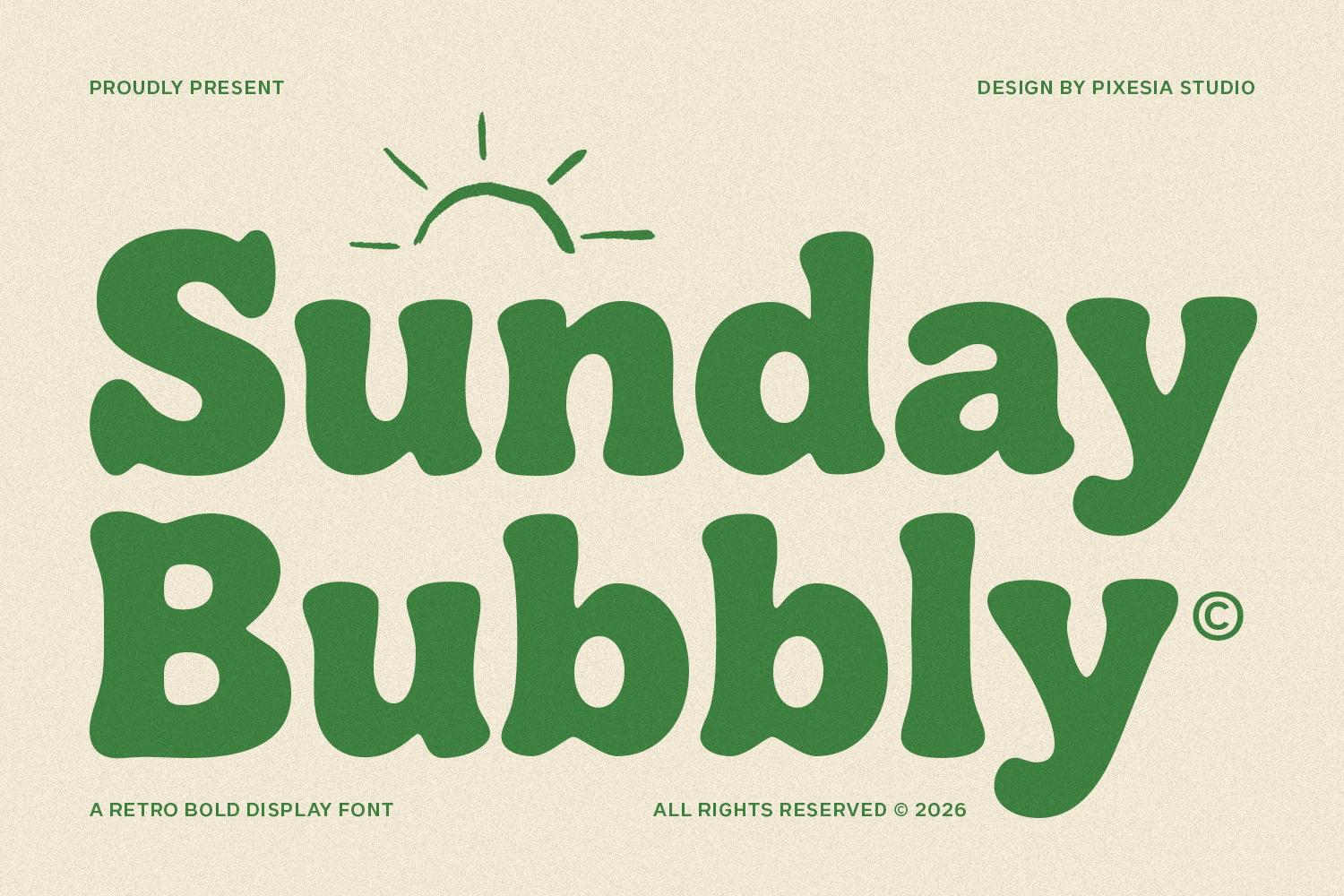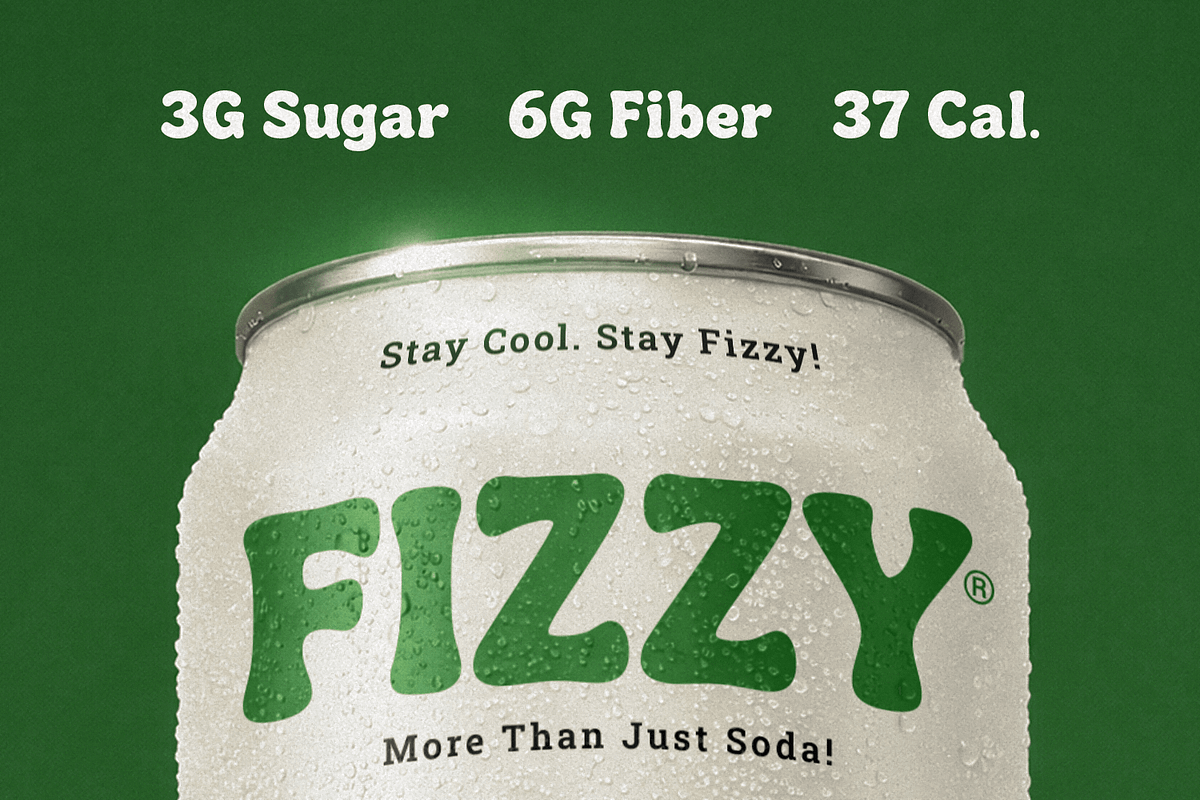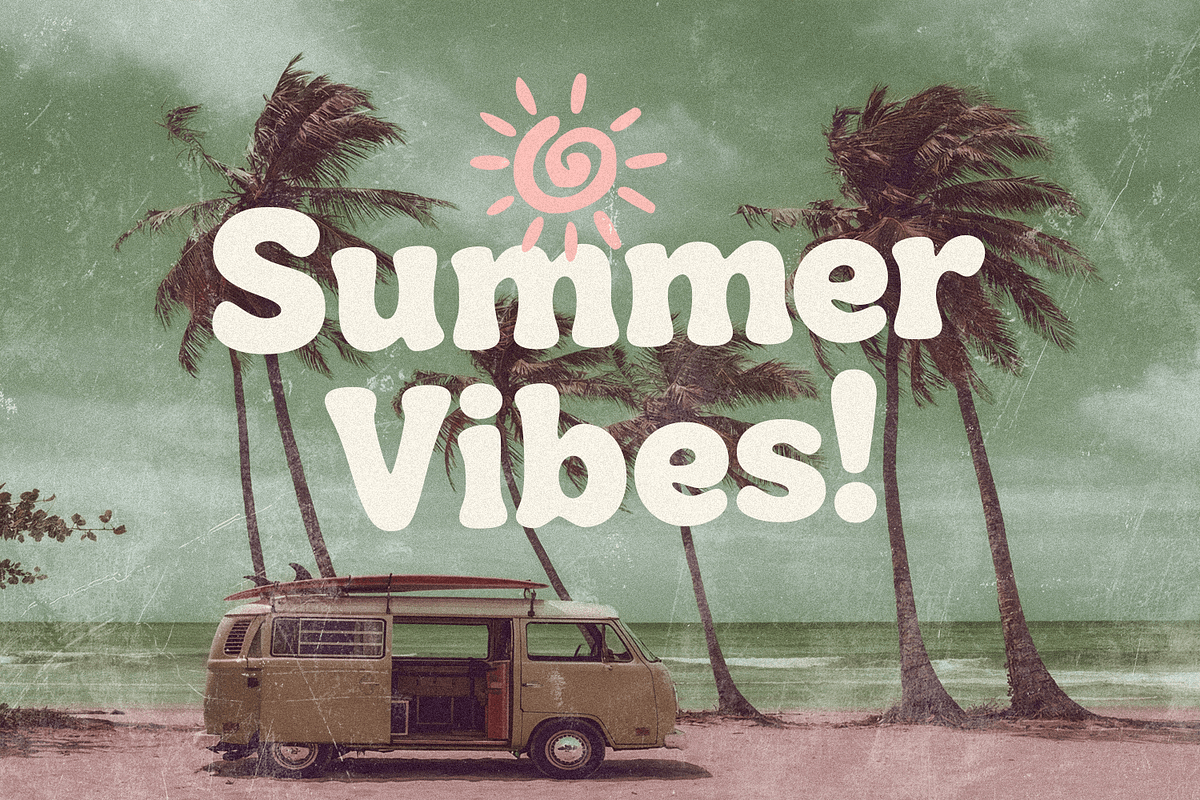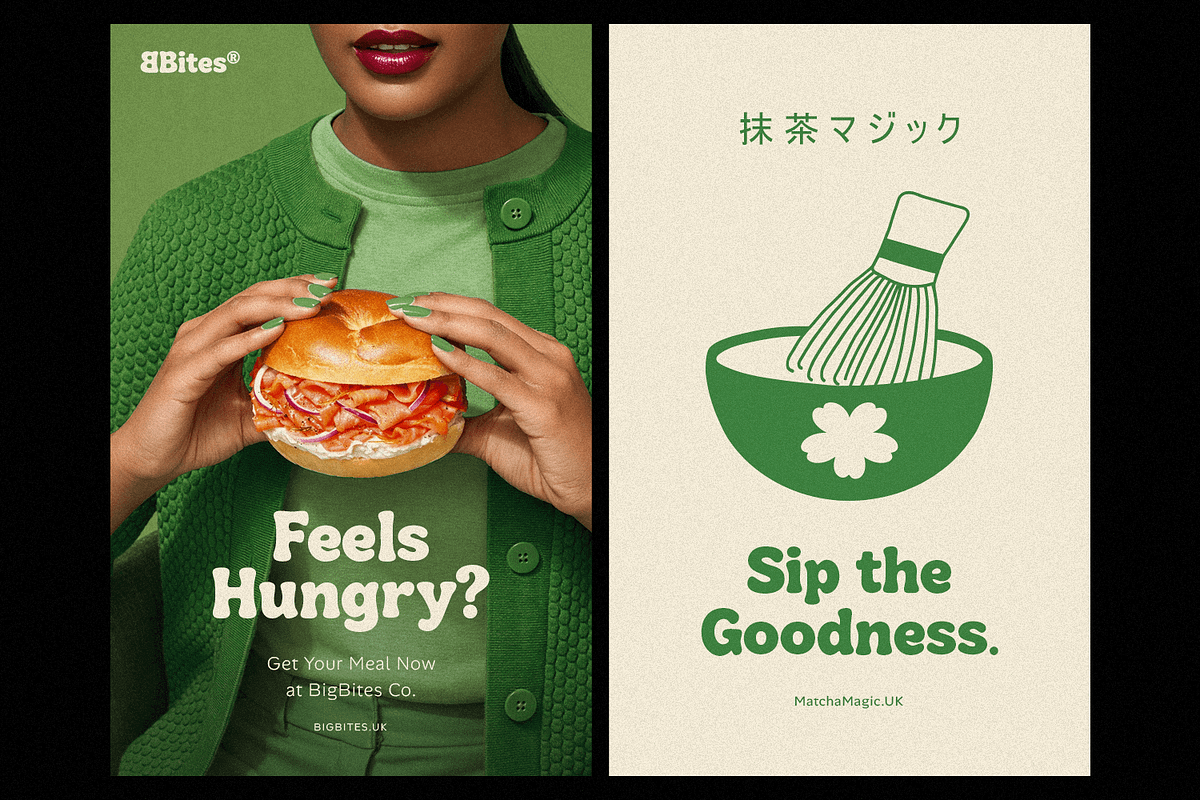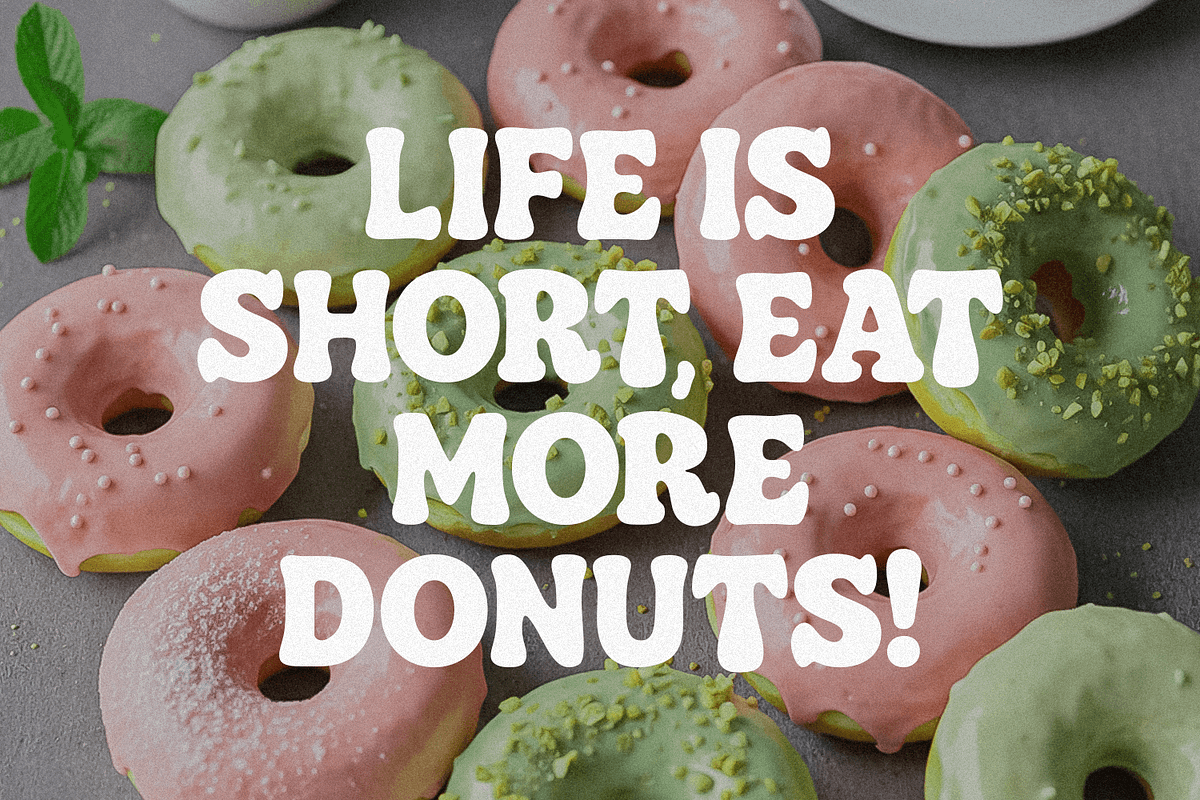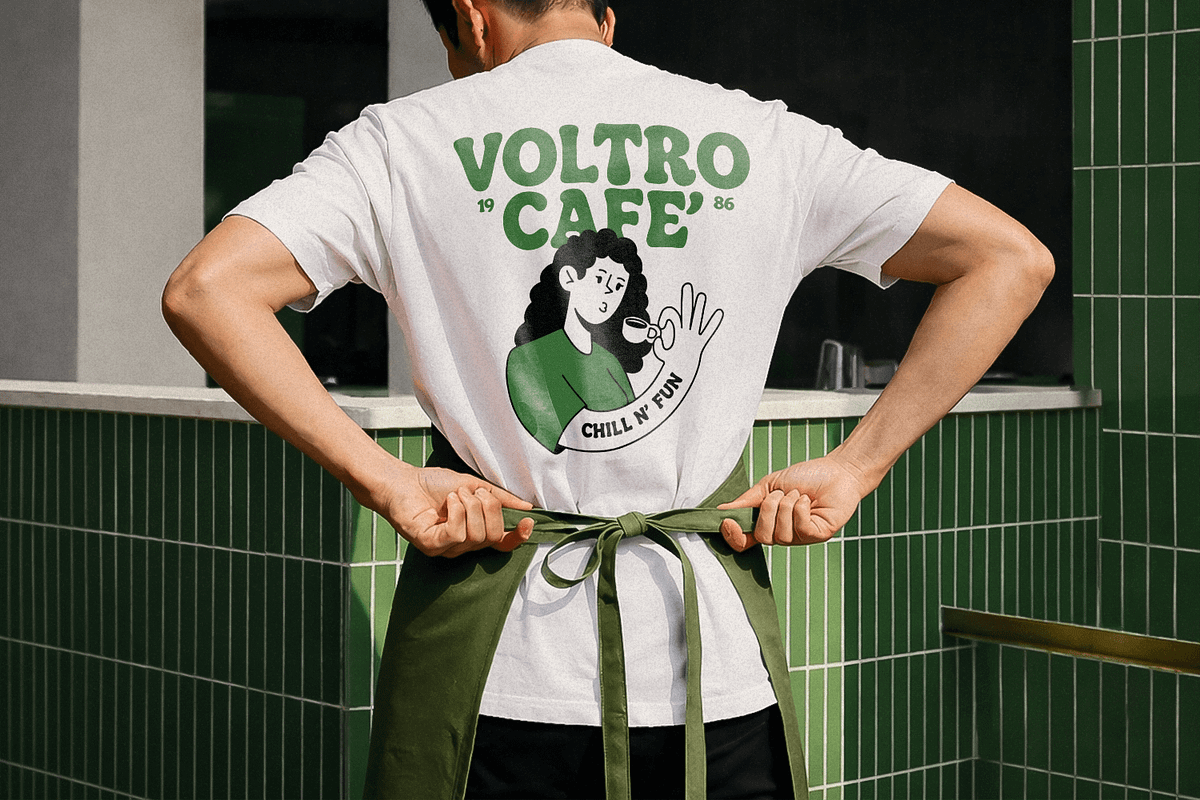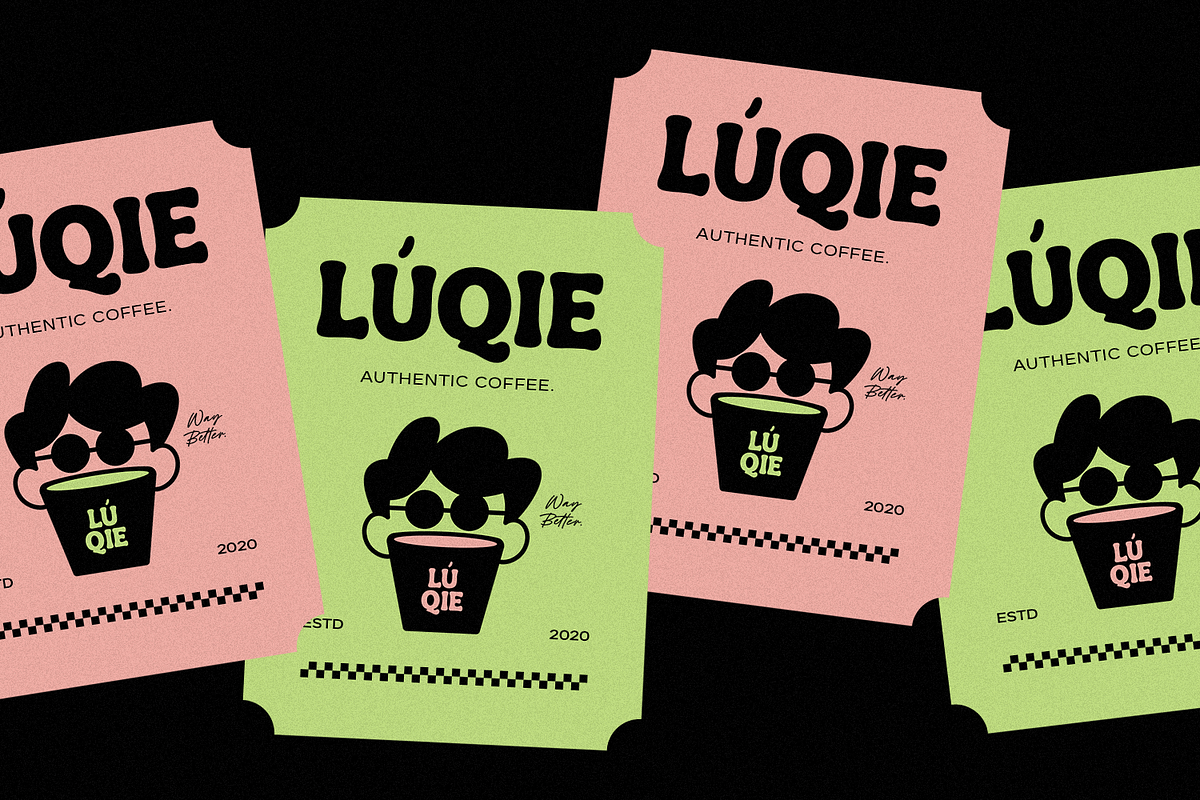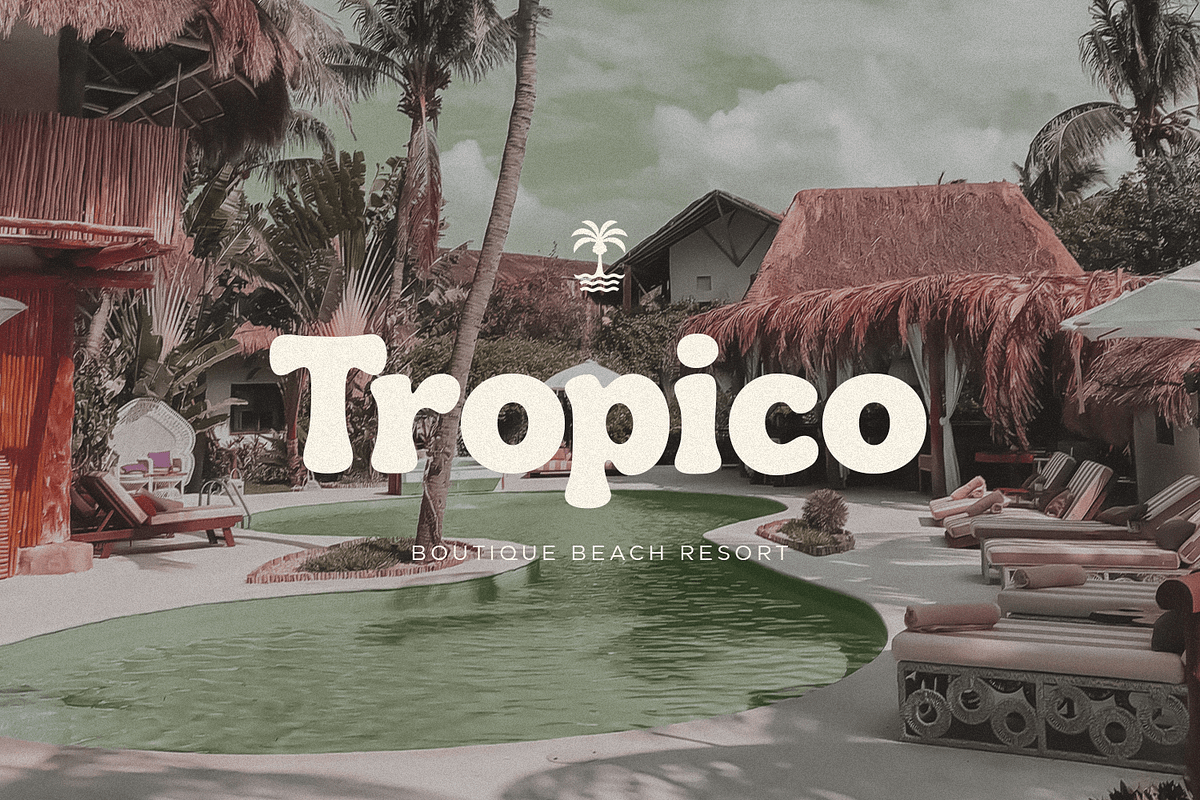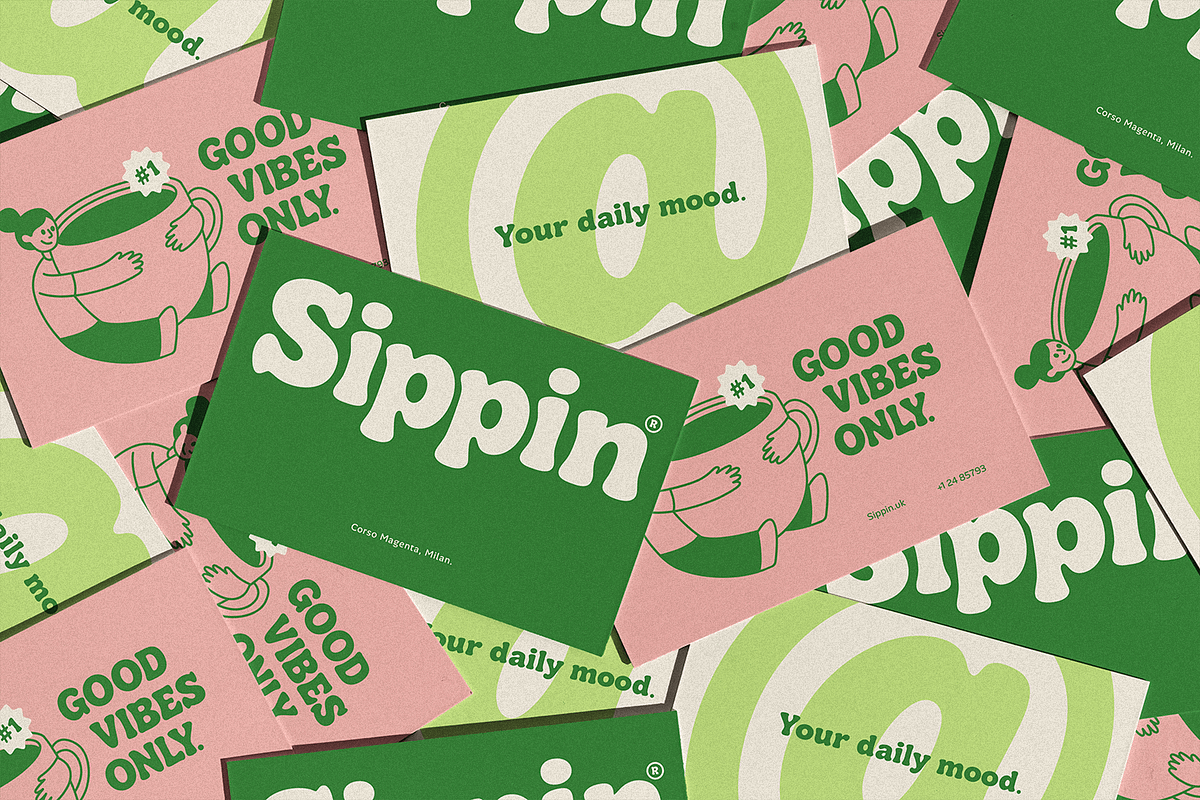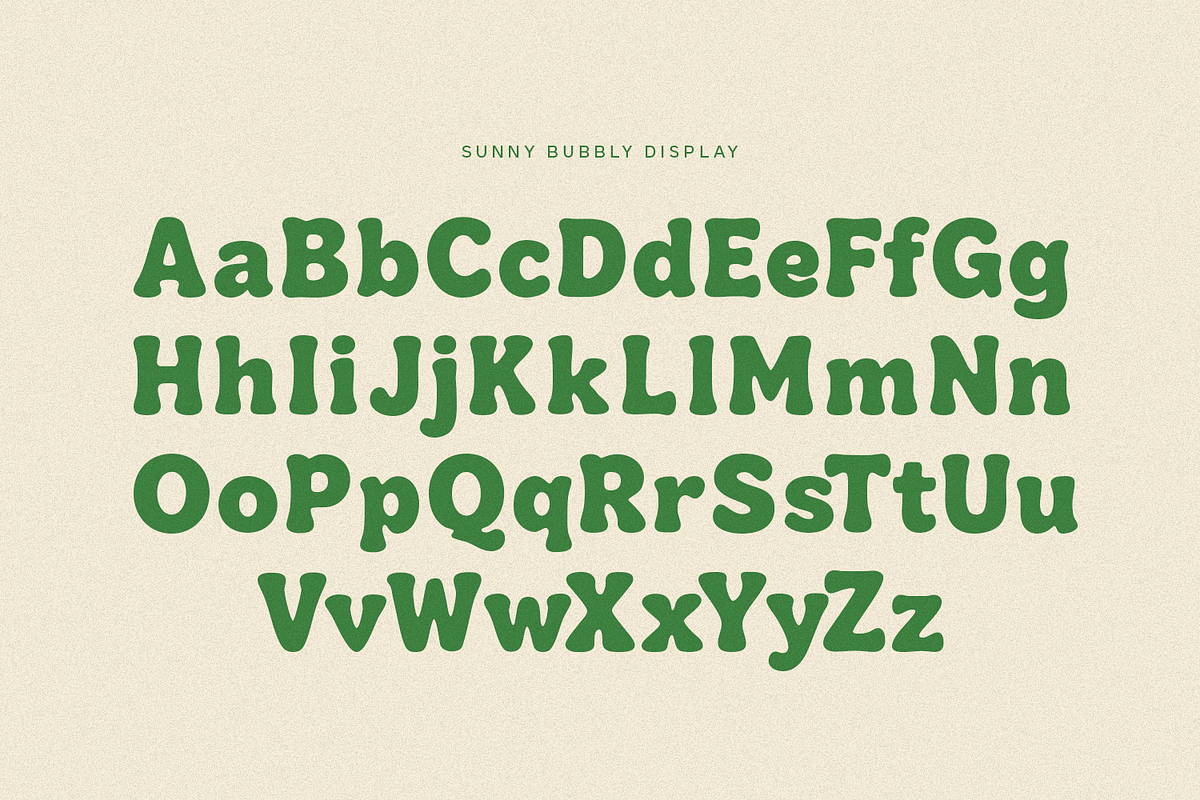
Sunday Bubbly - Bold Retro Font
Introducing Sunday Bubbly - Bold Retro Font
Sunday Bubbly is a bold retro display font with soft, rounded, and bubbly letterforms that bring warmth, joy, and playful personality to your designs. Inspired by 70s groovy typography and modern friendly branding, this typeface delivers a smooth, charming, and highly readable style that feels both nostalgic and fresh.
Perfect for logos, packaging, café branding, posters, children’s products, social media graphics, and cheerful visual identities, Sunday Bubbly adds instant fun and approachability to any project. Whether you're creating cute branding, retro-inspired artwork, or playful headlines, this font makes every word feel bright, happy, and inviting.